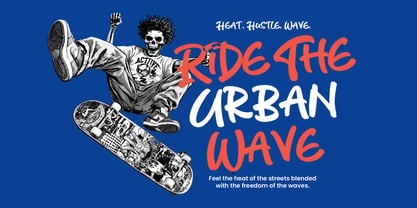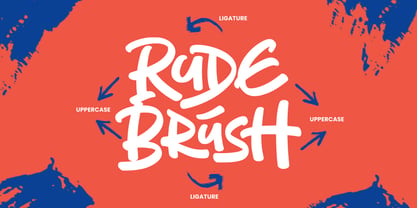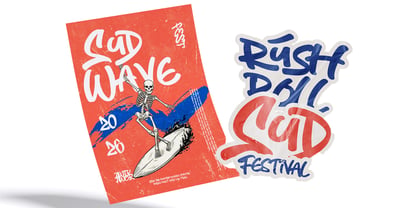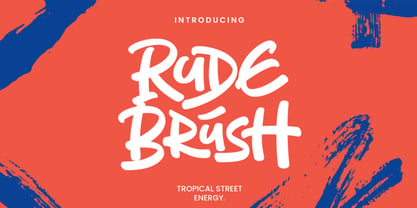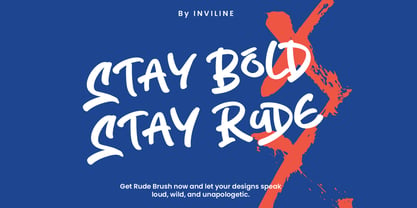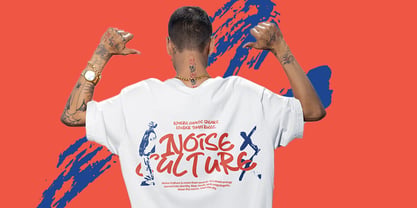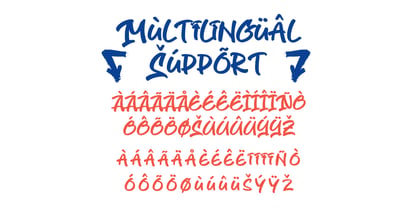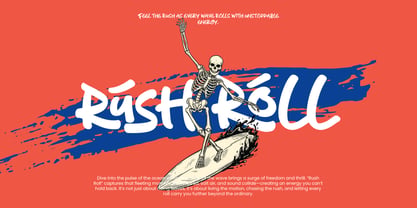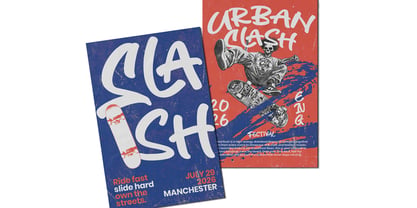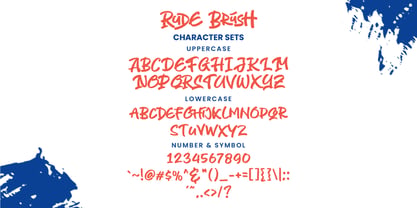
Rude Brush
by Inviline
The Rude Brush Font Family was designed by Virgiawan Listanto and published by Inviline. Rude Brush contains 1 styles. More about this family
Rude Brush - Tropical Street Energy transcends the typical font; it embodies an identity for the bold, the adventurous, and the unapologetic. Drawing inspiration from the dynamic world of skateboarding and the vibrant rhythm of tropical surfing, this typeface showcases aggressive yet fluid brush strokes that demand attention. Ideal for designing festival posters, signature streetwear collections, or edgy social media content, Rude Brush delivers the "Urban Wave" aesthetic your project requires. It includes custom ligatures that ensure your typography feels authentic and hand-crafted, enhancing the overall visual impact of your designs.
Designers: Virgiawan Listanto
Foundry: Inviline